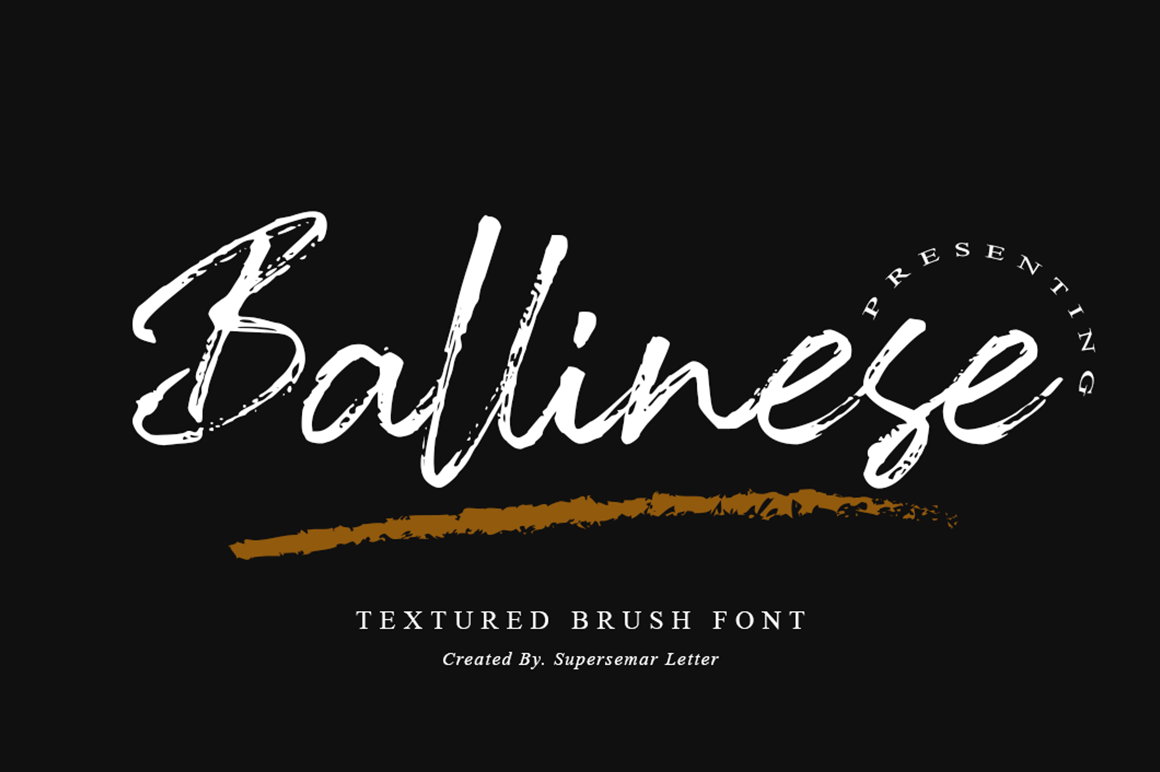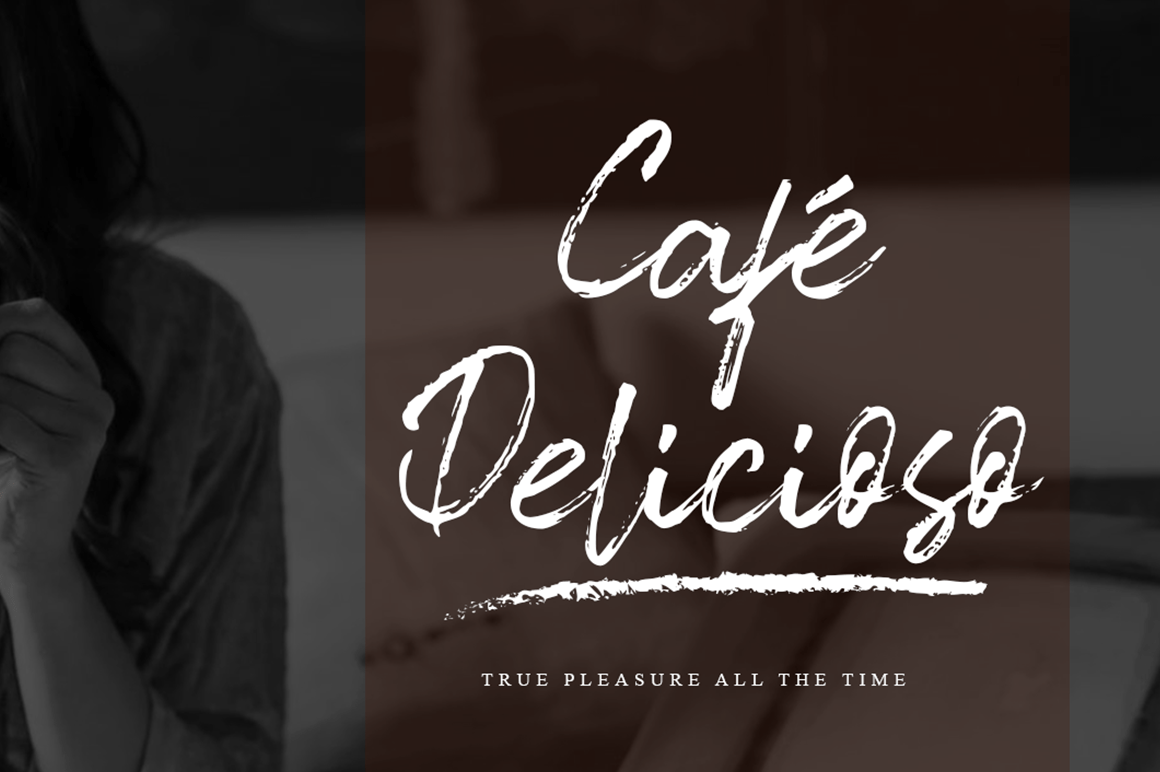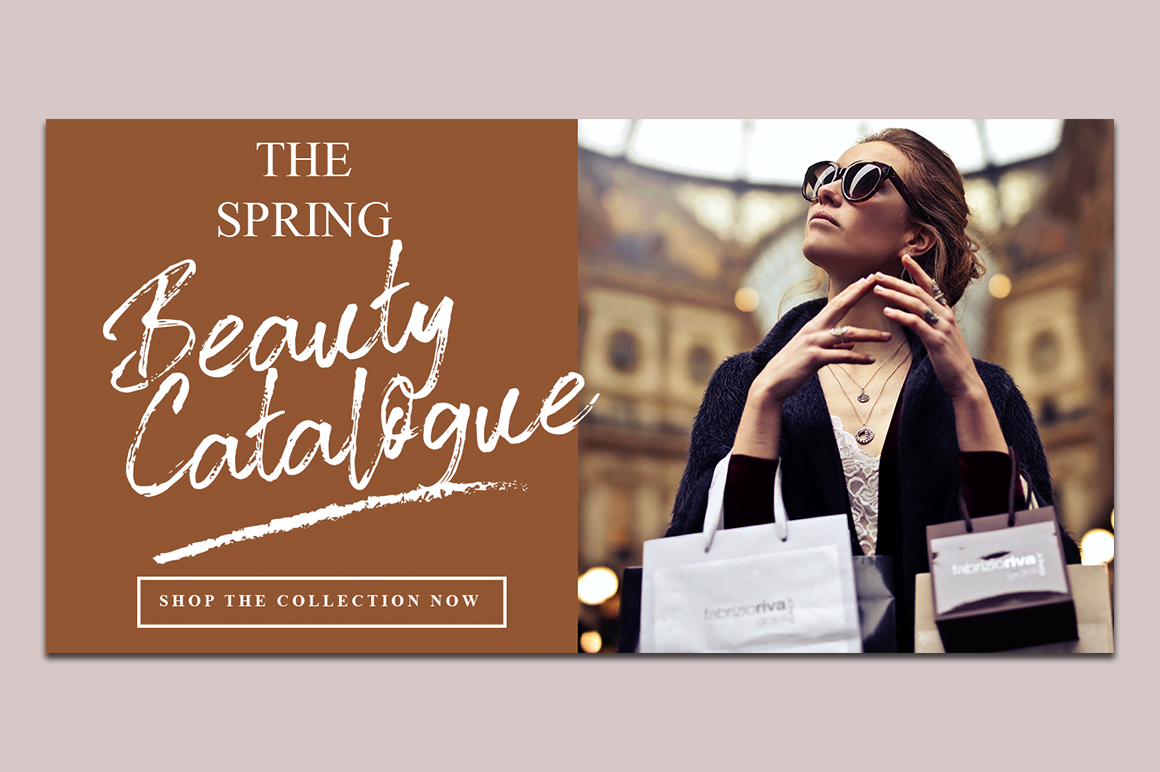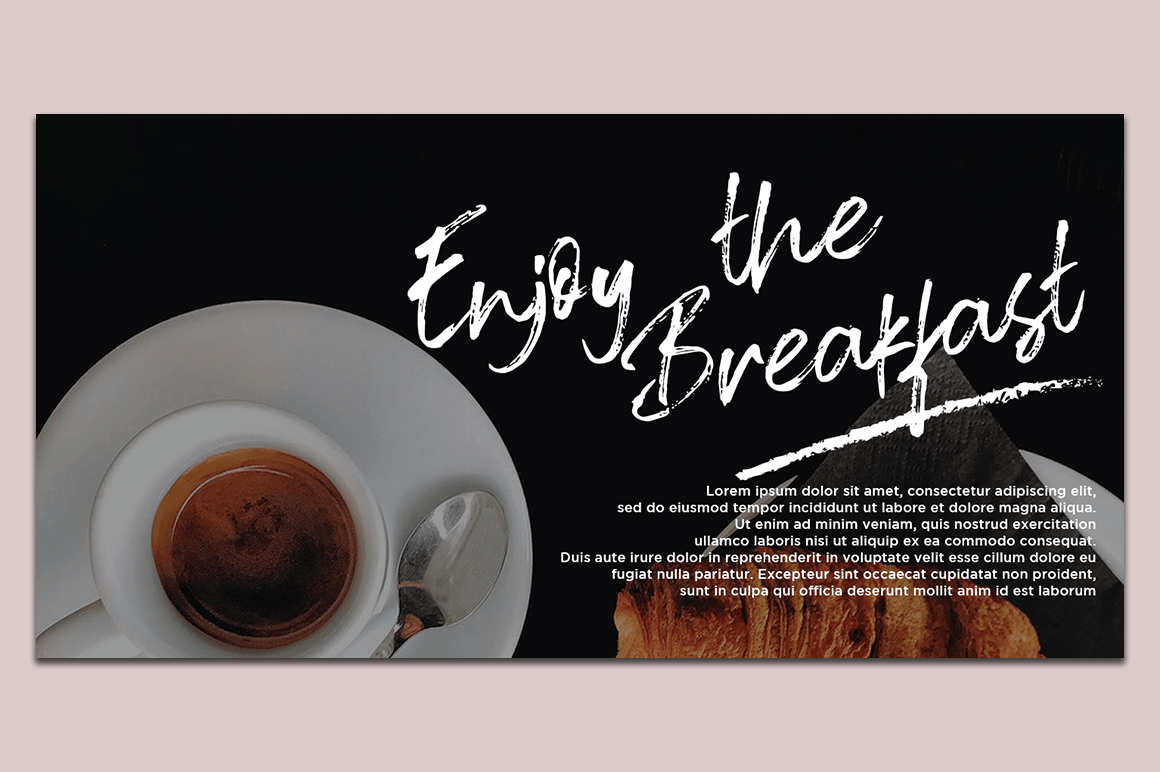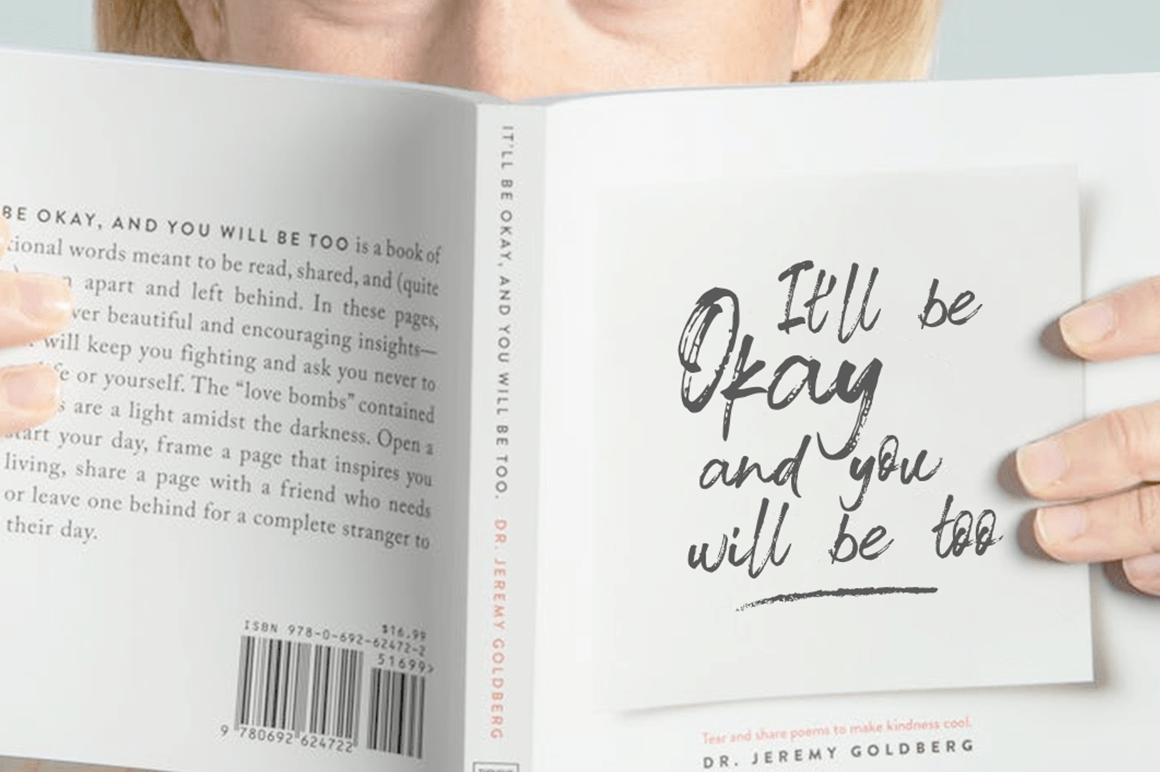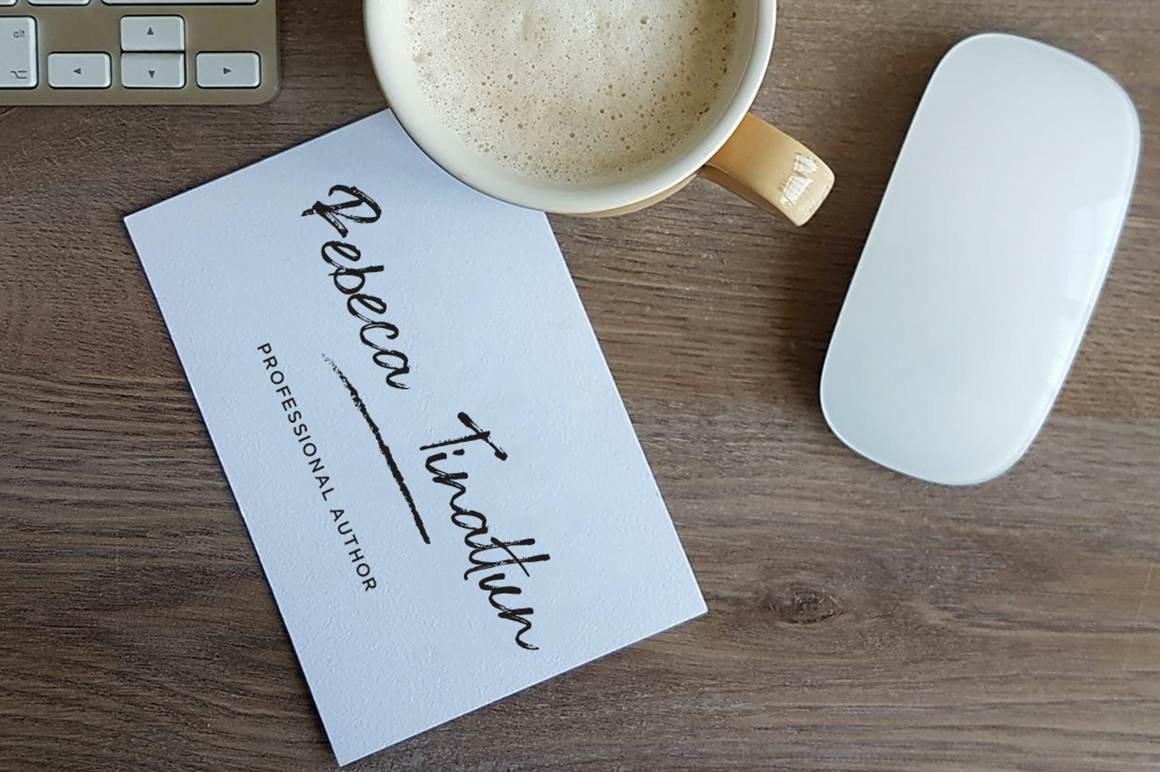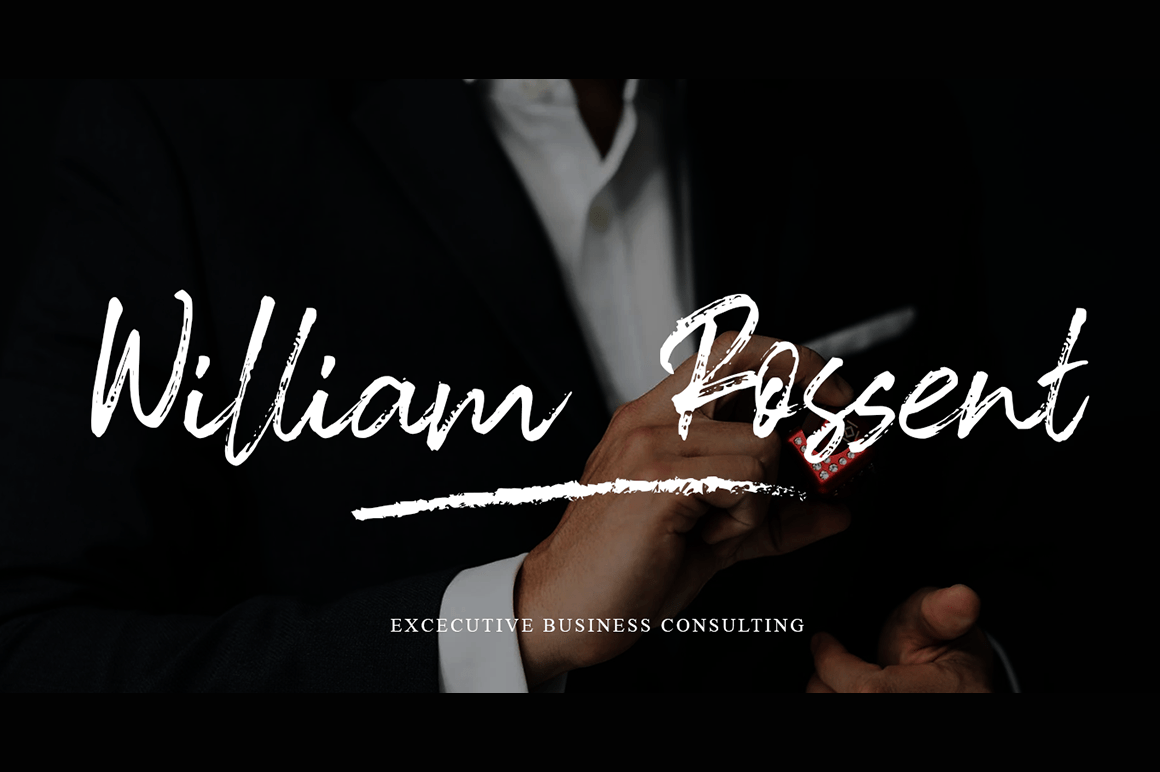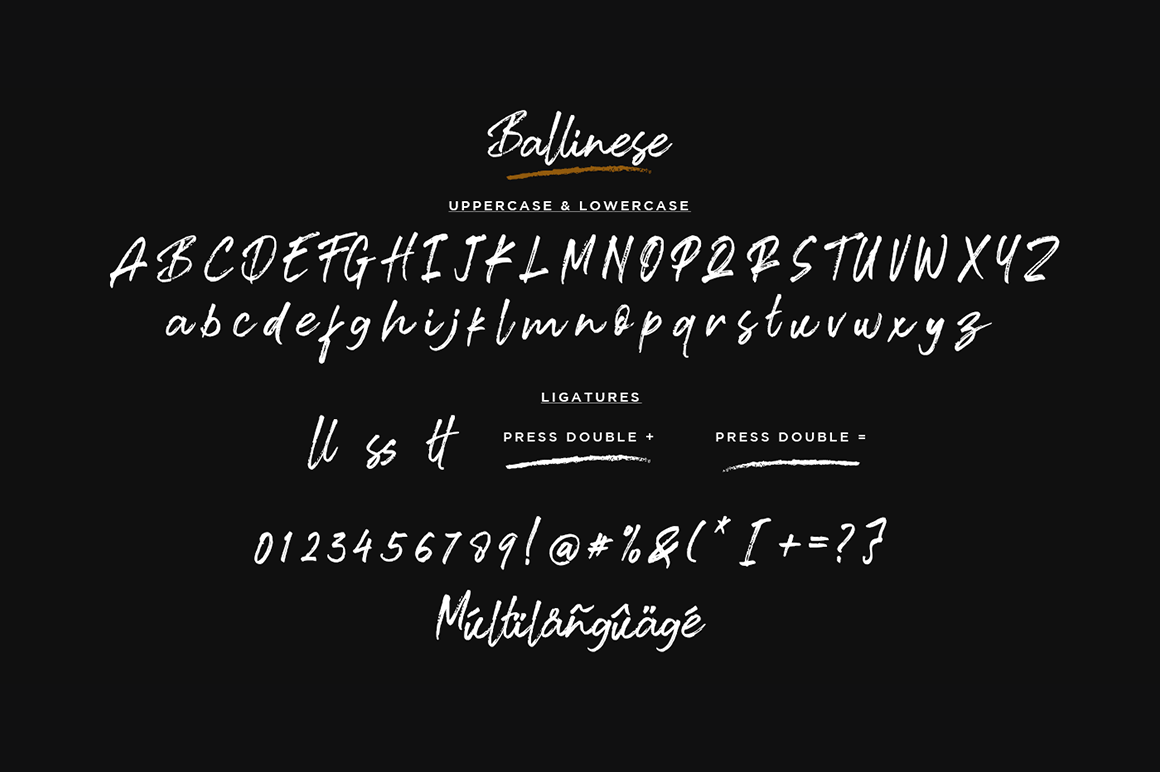
- Ballinese
Ballinese is the brush script display typeface with simple brush textured style looks and feel nice balanced.
Honestly it works perfectly for headlines, logos, posters, packaging, T-shirts and much more for branding and anything designs.
Font Features :
- Regular and Slanted (Italic) Version
- Character set A-Z in All Caps Style
- Ligatures in Uppercase
- Numerals & Punctuation
- Accented Characters
- Multiple Languages Supported